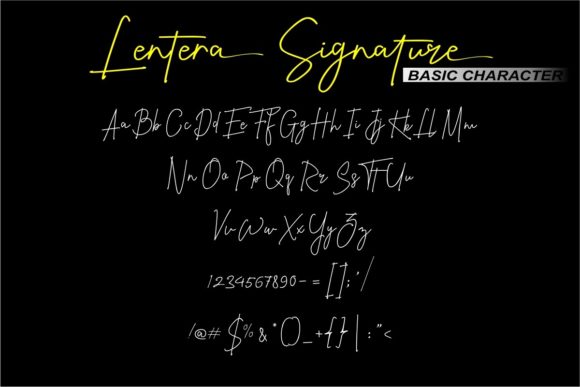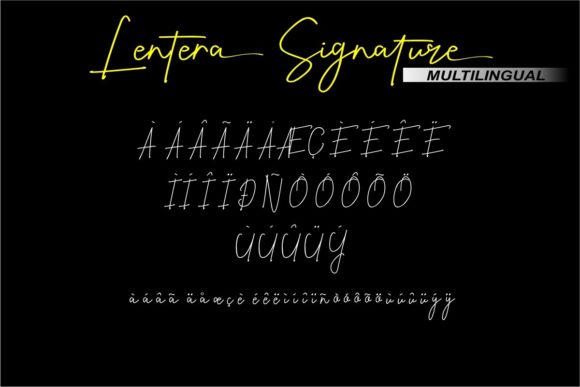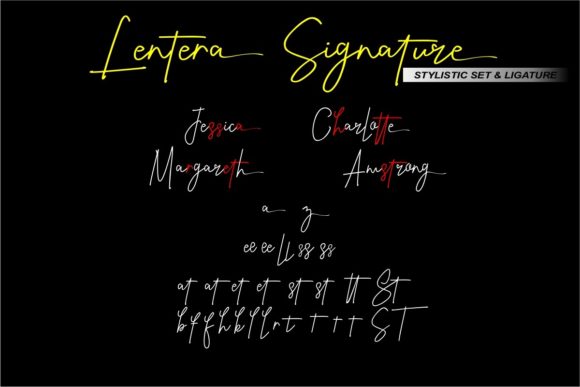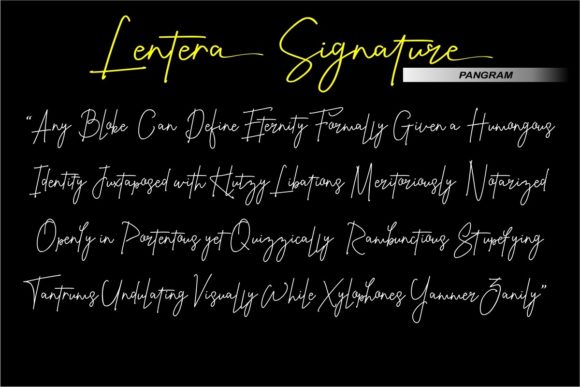
Introduction to Lentera Signature Font
Lentera Signature is a thin lettered, delicate and stylish script font.
It is PUA encoded which means you can access all of the glyphs and swashes with ease Fall in love with its incredibly versatile style and use it to create spectacular designs.
Key Features of Lentera Signature Font
Why Choose Lentera Signature Font?
Lentera Signature Font offers exceptional quality and versatility, making it a valuable addition to your design toolkit. Whether you’re creating for personal projects or commercial use, Lentera Signature Font delivers professional results.